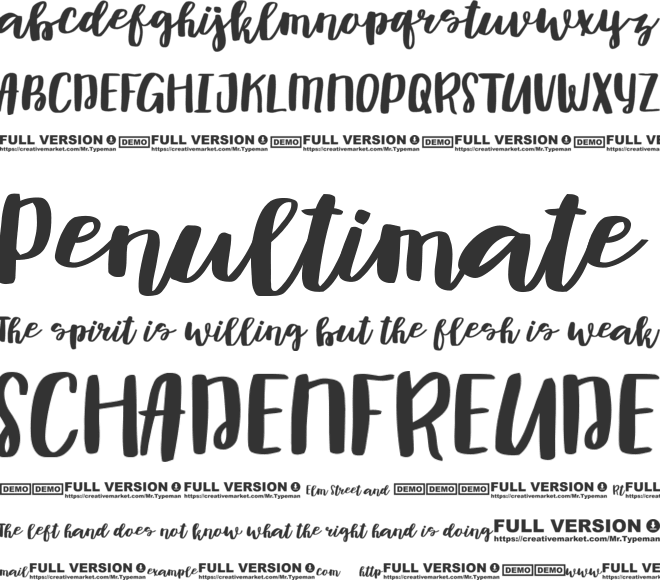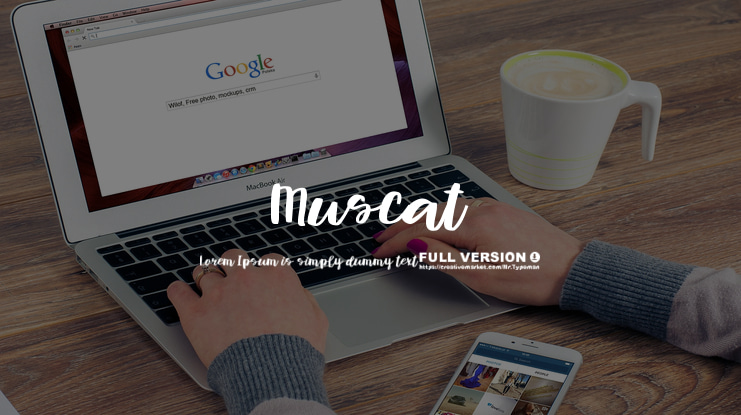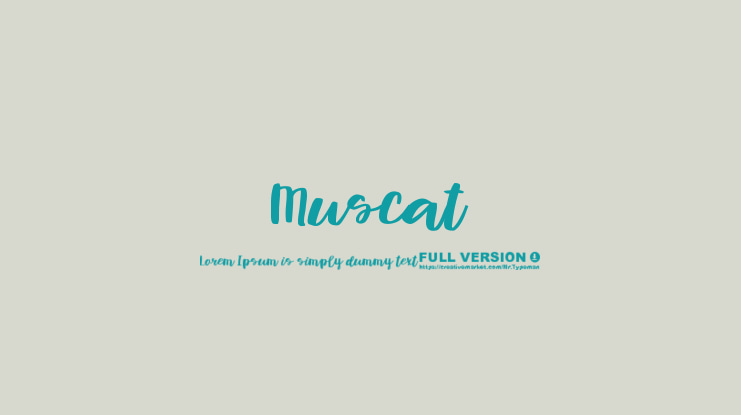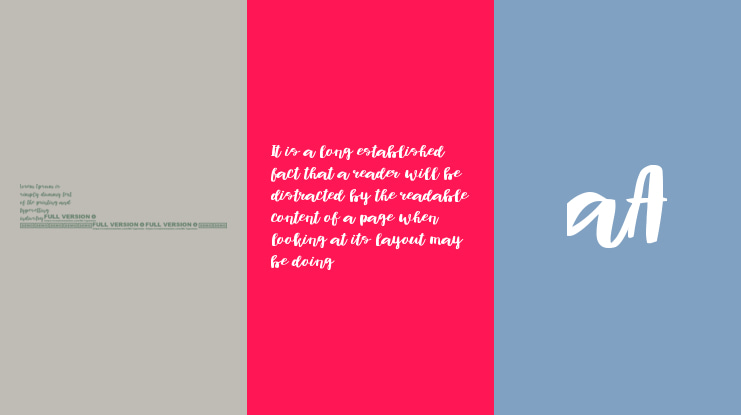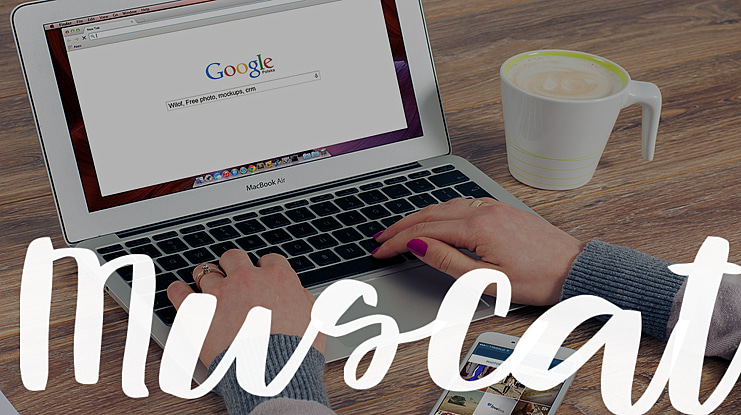
Muscat Font
I'm glad to introduce you my new font Muscat - a hand-made brush font, wich simulates natural handwriting. Suitable and applicable to create typography design, christmas card, branding, logos, product packaging, invitation, t-shirt, label poster etc.
Full version of Muscat comes with uppercase, lowercase, standard punctuation, numerals and special letters for most of the European languages.